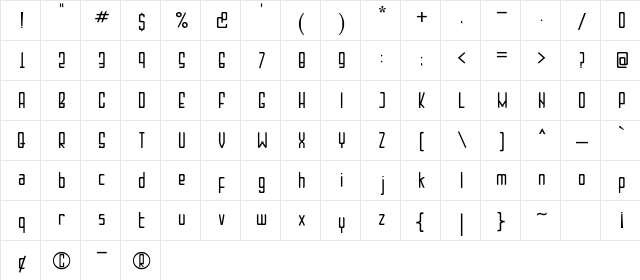
Brownies Pie Regular
| Designer | Arvan Fatwa |
Design Context for Brownies Pie Typeface
Brownies Pie takes a measured approach to typography — its balanced proportions and neutral character make it a reliable workhorse for both digital and print work.